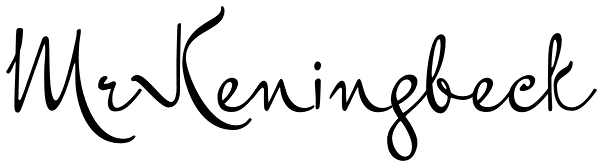
Mr Keningbeck
The Charles Bluemlein Script Collection is an intriguing reminder of the heady days of hand lettering and calligraphy in the United States. From the early 1930s through World War II, there were about 200 professional hand letterers working in New...